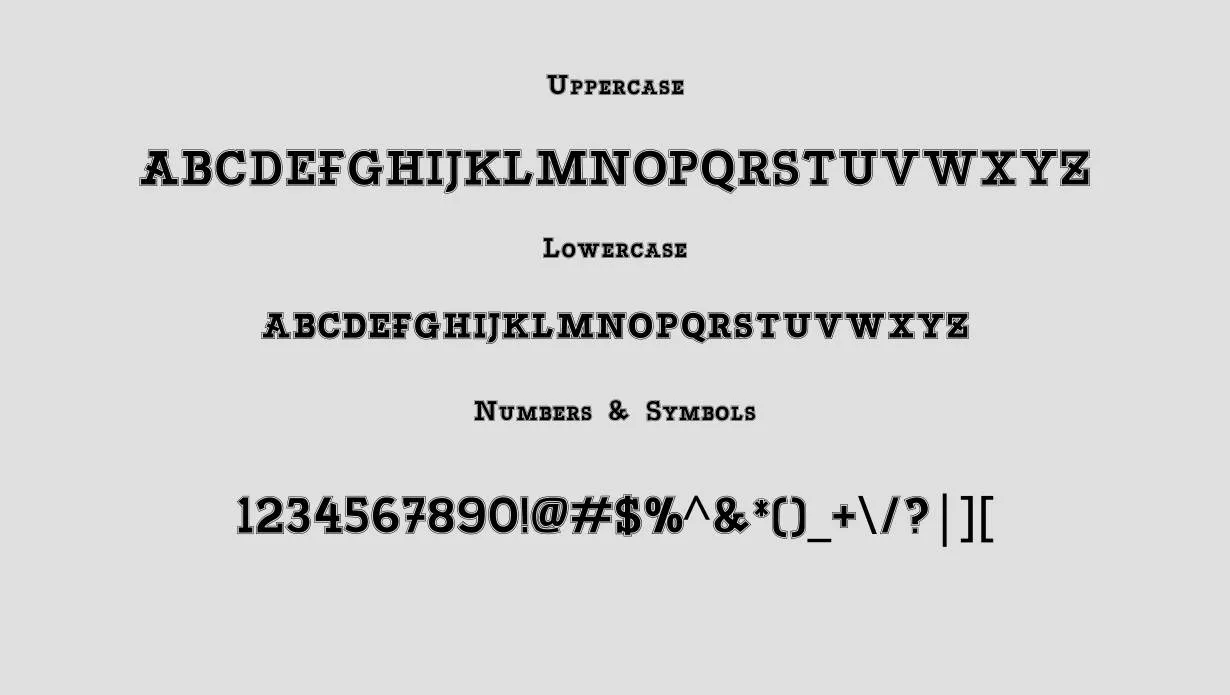
Bascula Font is a modern and versatile typeface known for its clean and straightforward design.
It’s often used in branding, web design, and various design applications where a contemporary and sophisticated appearance is desired.
Bascula Font Family
| Name | Bascula Font |
| Designer | Fernando Carvente |
The font’s simplicity and elegance make it a valuable tool for creating professional design work. It is also good for combining with other typeface such asĀ claudiana font.